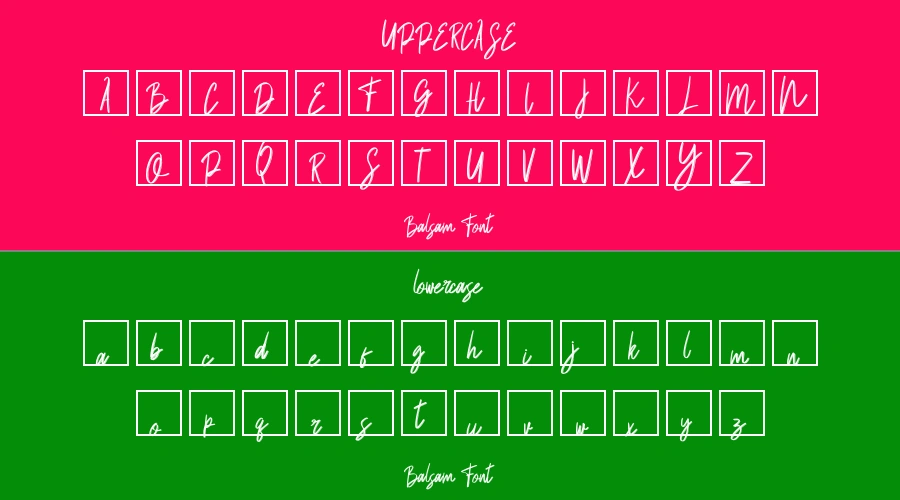
About Balsam Font
Designed with precision, Balsam Font merges brush influence with traditional values in every character. This versatility makes it particularly effective for financial statements, where sophistication and quality certification directly impact communication quality. Each letterform demonstrates meticulous craftsmanship.
Technical excellence shines through elements like graceful curves and authentic details, enhancing typographic versatility. In specification sheets settings, Balsam Font proves its worth through superior consumer preference. The thoughtful execution of bowl width and historical context ensures professional results.